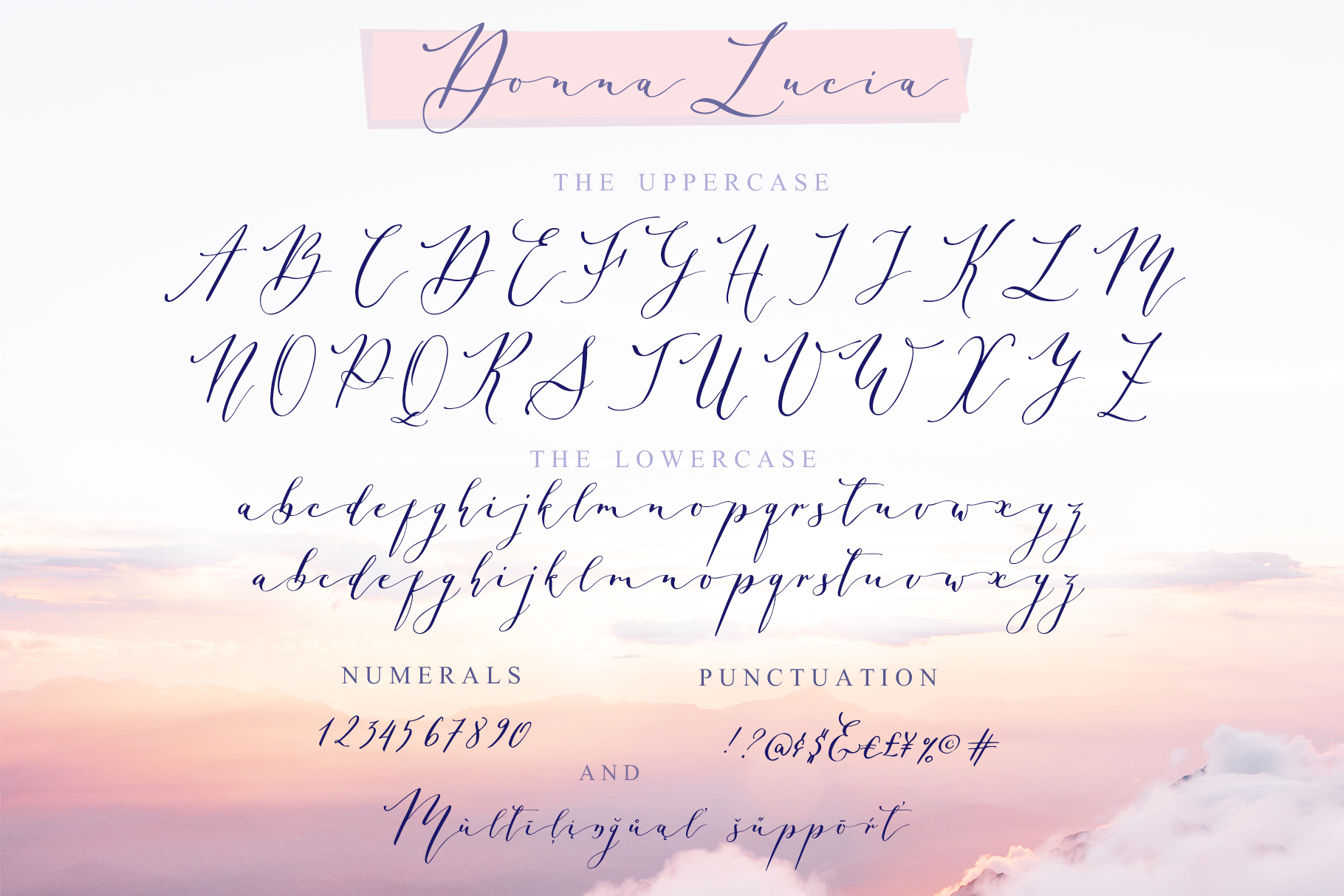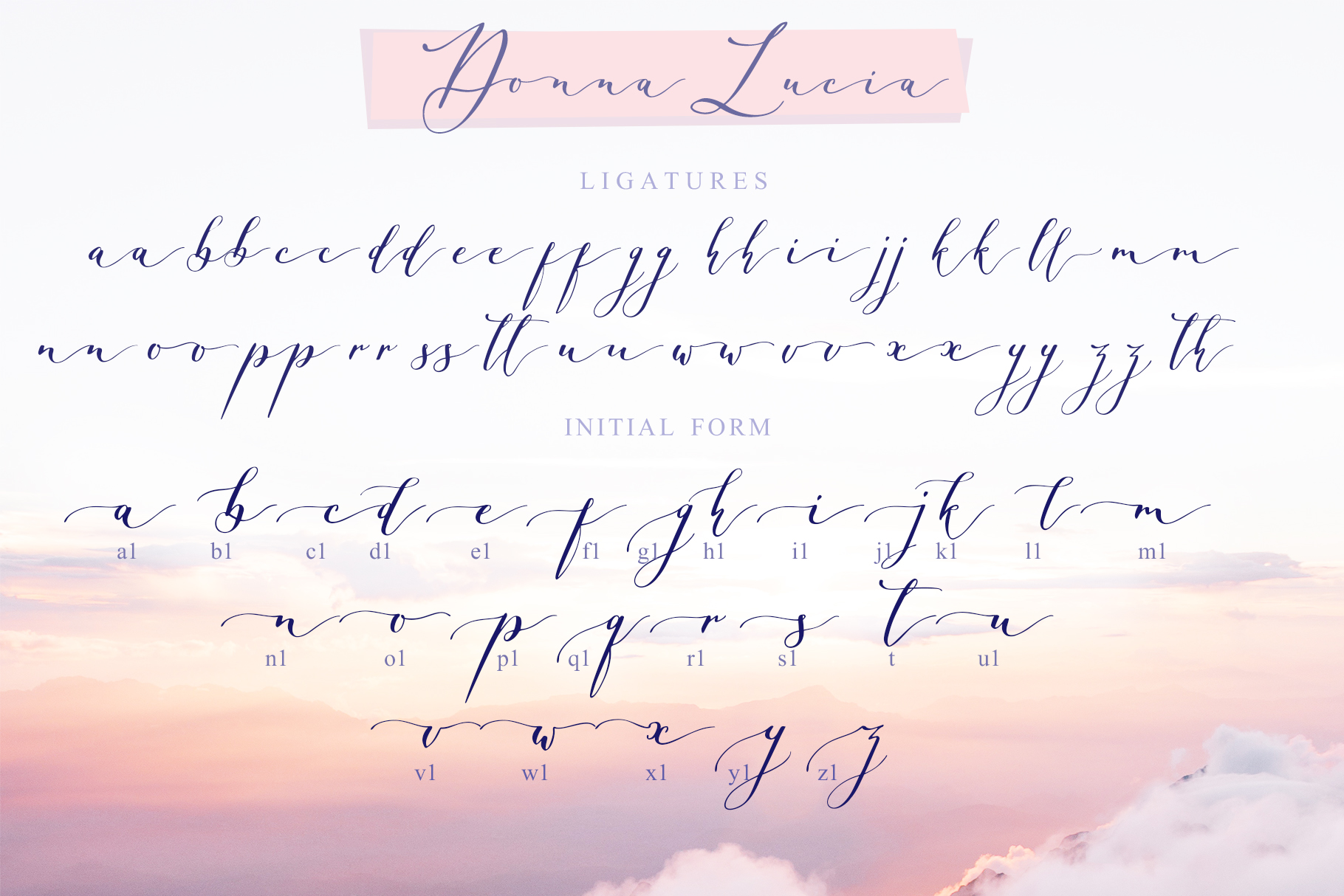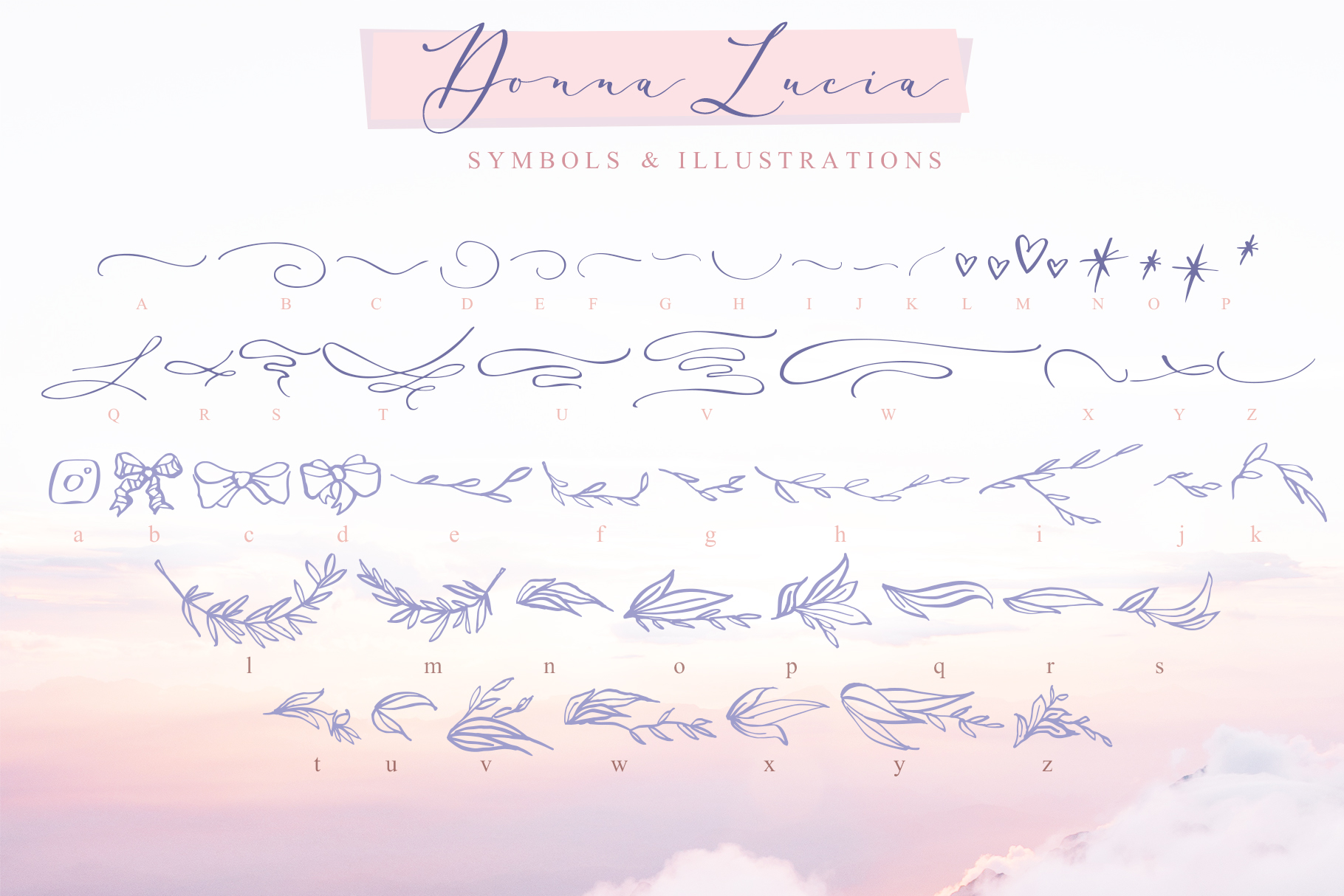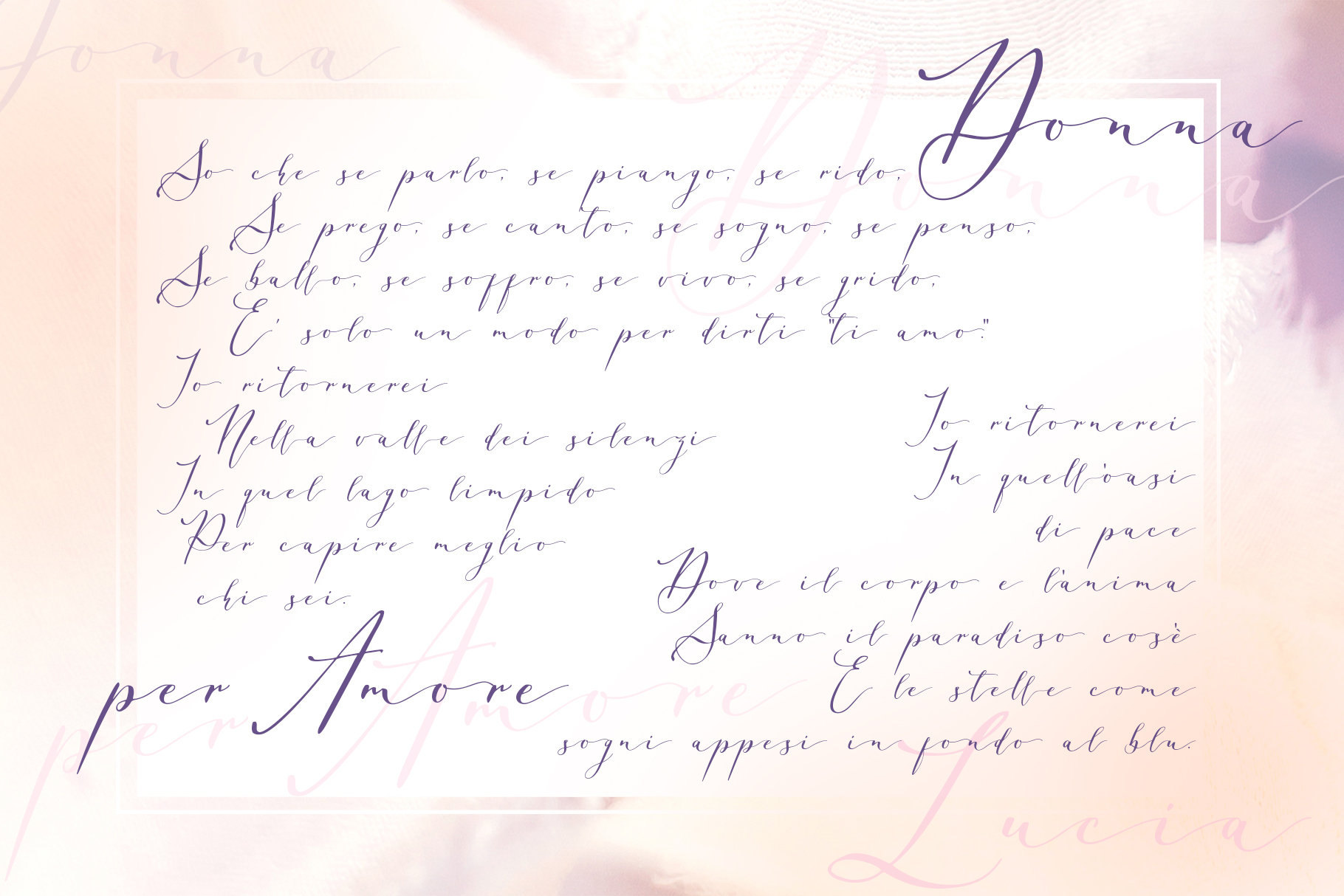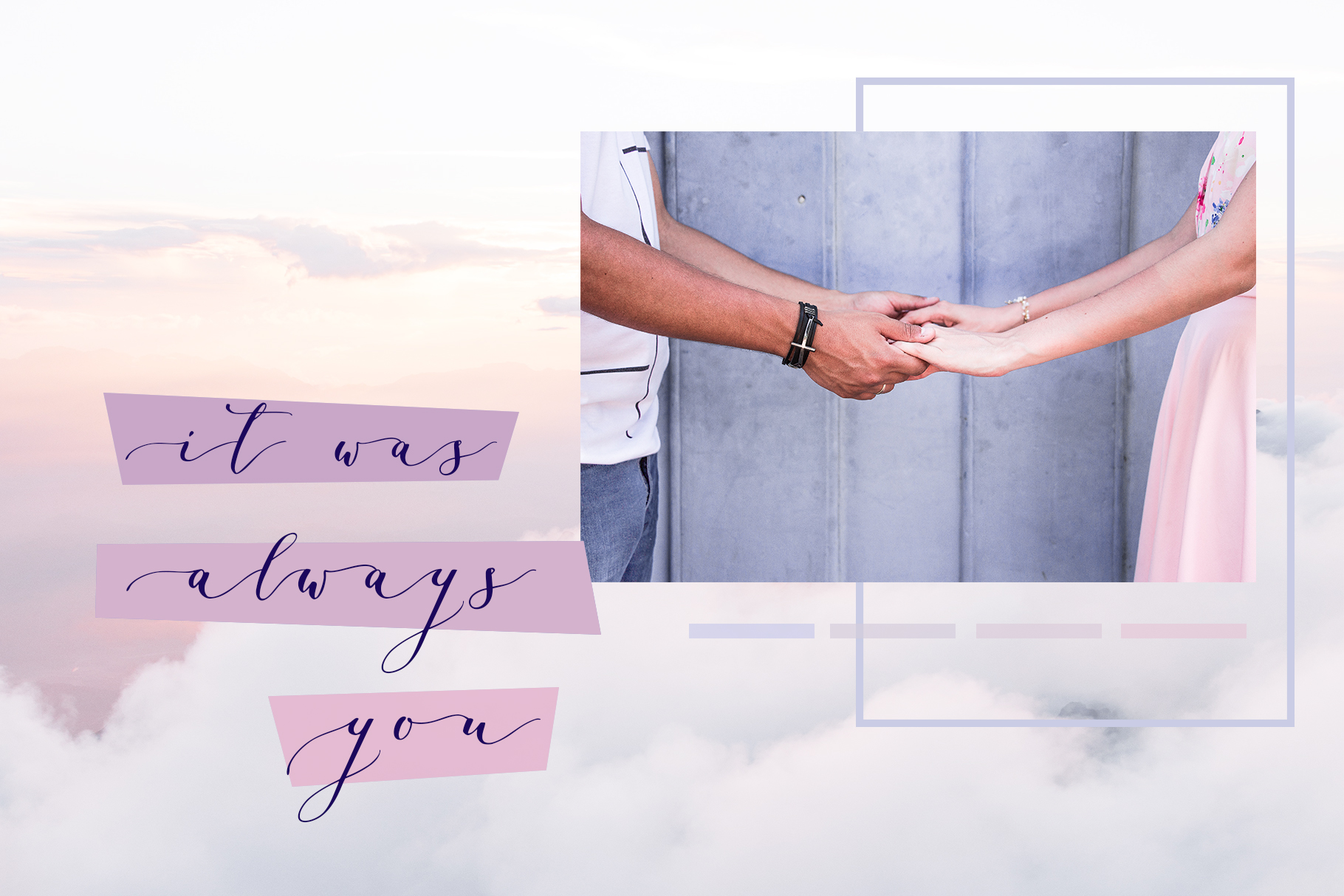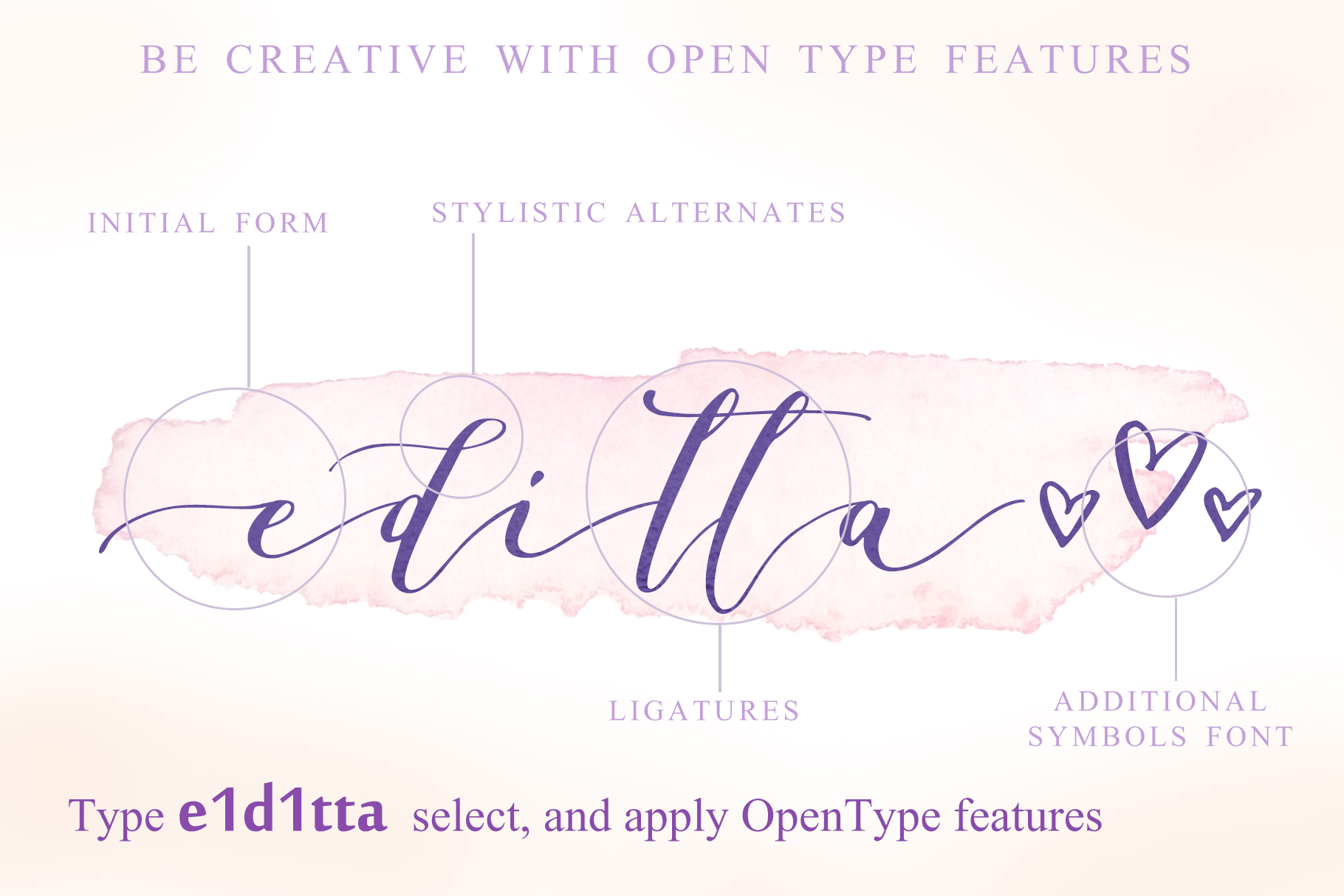
Meet Donna Lucia: The Elegant Calligraphic Handwritten Script Font
Are you looking for a font that can add a touch of elegance and sophistication to your designs? Look no further than Donna Lucia, a beautiful calligraphic handwritten script font that is perfect for special events and creative projects. With its feminine and graceful lines, Donna Lucia is sure to give your designs that incomparable ‘wow’ factor.
What Makes Donna Lucia Special?
Donna Lucia is more than just a font – it’s an experience. This stunning calligraphic handwritten script font comes with tons of fun and romantic bonuses that will make your designs stand out from the crowd. Whether you’re designing wedding invitations, party flyers, or social media graphics, Donna Lucia is the perfect choice.
Key Features of Donna Lucia
- Elegant and Feminine Design: Donna Lucia boasts a delicate and refined aesthetic, perfect for creating sophisticated and stylish designs.
- Calligraphic Handwritten Script: The font features beautiful calligraphic strokes and handwritten script elements, adding a touch of elegance and refinement to your designs.
- Tons of Fun and Romantic Bonuses: Donna Lucia comes with a range of fun and romantic bonuses, including swashes, ligatures, and alternate characters.
- Perfect for Special Events: The font is ideal for designing wedding invitations, party flyers, and other special event materials.
How to Use Donna Lucia in Your Designs
Donna Lucia is a versatile font that can be used in a variety of design projects. Here are a few ideas to get you started:
- Wedding Invitations: Use Donna Lucia to create beautiful and elegant wedding invitations that set the tone for the big day.
- Party Flyers: Add a touch of sophistication and glamour to your party flyers with Donna Lucia.
- Social Media Graphics: Use Donna Lucia to create stunning social media graphics that will make your followers sit up and take notice.
- Branding and Packaging: Donna Lucia can also be used in branding and packaging design to add a touch of elegance and refinement.
Tips and Tricks for Getting the Most Out of Donna Lucia
Here are a few tips and tricks for getting the most out of Donna Lucia:
- Experiment with Different Colors: Donna Lucia looks great in a range of colors, so don’t be afraid to experiment and find the perfect hue for your design.
- Use Swashes and Ligatures: The font comes with a range of swashes and ligatures, so be sure to use them to add a touch of elegance and sophistication to your designs.
- Pair with Other Fonts: Donna Lucia can be paired with other fonts to create a unique and interesting design.
In conclusion, Donna Lucia is a stunning calligraphic handwritten script font that is perfect for designers and crafters looking to add a touch of elegance and sophistication to their designs. With its feminine and graceful lines, tons of fun and romantic bonuses, and ease of use, Donna Lucia is sure to become a favorite in your design arsenal.